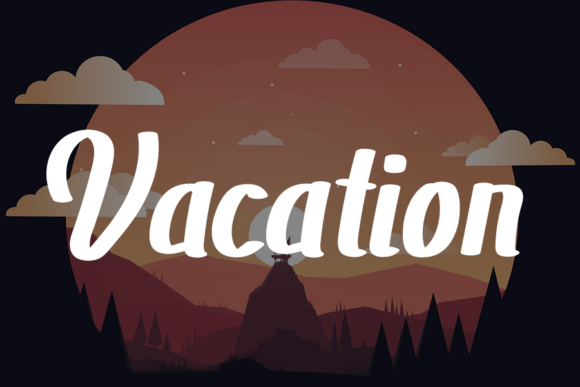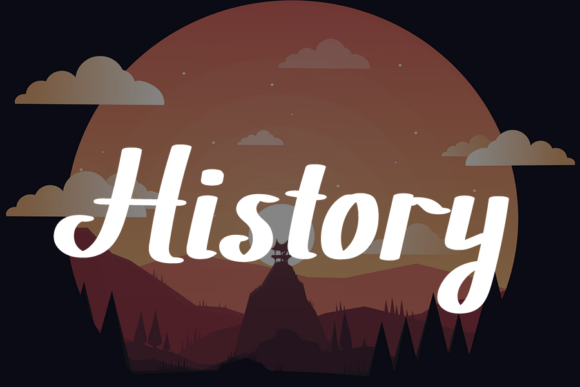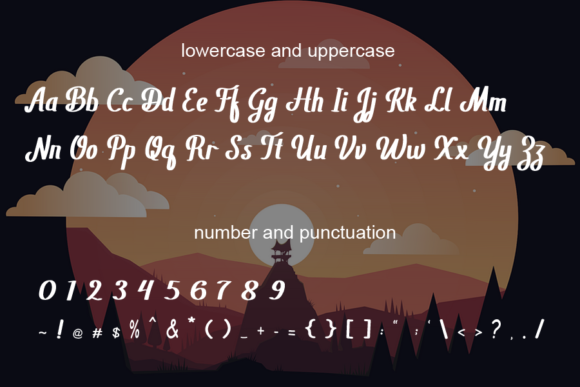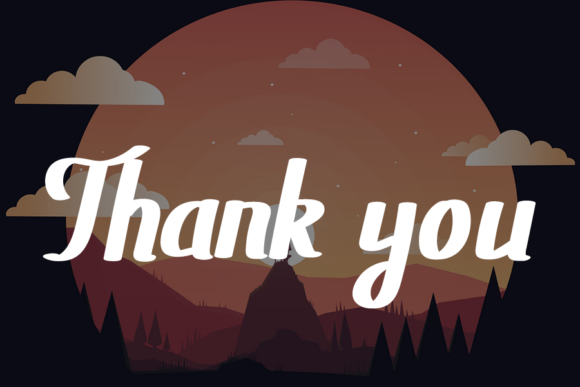
Bintonk Font: The Ultimate Companion for Designers and Crafters
Bintonk is a delightful, fun, and friendly handwritten font that’s taking the design world by storm. This charming font is perfect for a wide range of creative projects, from crafting and digital designing to presentations and greeting card making. In this article, we’ll dive into the wonderful world of Bintonk Font and explore its features, uses, and benefits for designers and crafters.
What is Bintonk Font?
Bintonk Font is a carefully crafted handwritten font that’s designed to bring a touch of warmth and personality to your designs. Its cute and playful style makes it an excellent choice for projects that require a friendly and approachable tone. Whether you’re creating digital content, crafting handmade cards, or designing presentations, Bintonk Font is the perfect companion to help you add a dash of fun and whimsy to your work.
Features of Bintonk Font
Bintonk Font boasts a range of features that make it an attractive choice for designers and crafters. Some of its notable features include:
- Cute and playful style: Bintonk Font has a charming, handwritten style that’s sure to capture the hearts of your audience.
- High readability: The font is designed to be easy to read, making it perfect for body text, headings, and titles.
- Versatile: Bintonk Font can be used for a wide range of projects, from digital designs to handmade crafts.
- Easily customizable: The font can be adjusted to fit your project’s tone and style, making it easy to match your brand’s voice.
Uses of Bintonk Font
Bintonk Font is an incredibly versatile font that can be used for a variety of creative projects, including:
- Crafting: Add a personal touch to your handmade cards, scrapbook pages, and other craft projects with Bintonk Font.
- Digital designing: Use Bintonk Font to create engaging social media graphics, blog posts, and website content that resonates with your audience.
- Presentations: Make your presentations more engaging and fun with Bintonk Font’s playful style.
- Greeting card making: Create personalized and charming greeting cards for special occasions with Bintonk Font.
Benefits of Using Bintonk Font
Using Bintonk Font in your designs offers a range of benefits, including:
- Unique and playful style: Bintonk Font helps you stand out from the crowd with its distinctive and eye-catching style.
- Time-saving: The font’s high readability and versatility save you time and effort in designing and formatting your content.
- Emotional connection: Bintonk Font’s friendly and approachable tone helps you build an emotional connection with your audience.
Tips for Using Bintonk Font
To get the most out of Bintonk Font, here are some tips to keep in mind:
- Experiment with font sizes: Play around with different font sizes to create visual interest and hierarchy in your designs.
- Combine with other fonts: Pair Bintonk Font with other fonts to create a unique and eye-catching combination.
- Use in digital and print designs: Bintonk Font is suitable for both digital and print designs, making it a great addition to your font library.
Bintonk Font is a delightful and versatile font that’s perfect for designers and crafters looking to add a touch of fun and whimsy to their projects. With its cute and playful style, high readability, and ease of use, Bintonk Font is an excellent choice for a wide range of creative projects. Whether you’re crafting handmade cards, designing digital content, or creating presentations, Bintonk Font is sure to become your new favorite companion.